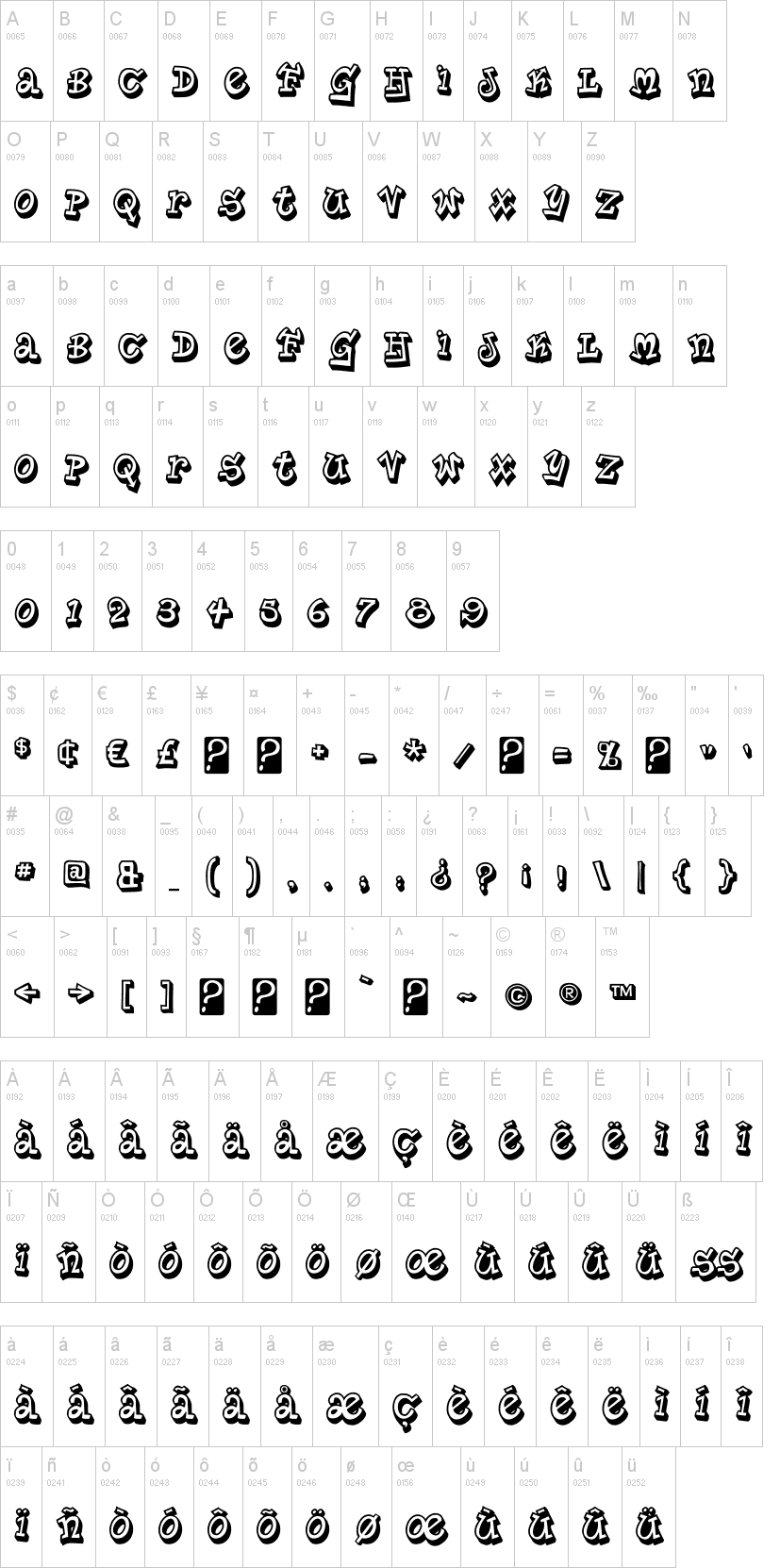
Шрифт Planet Benson
Planet Benson 2 was modeled after novice suburban graffiti. Don't forget to read the files inside the zip for details. Updated in 2012.